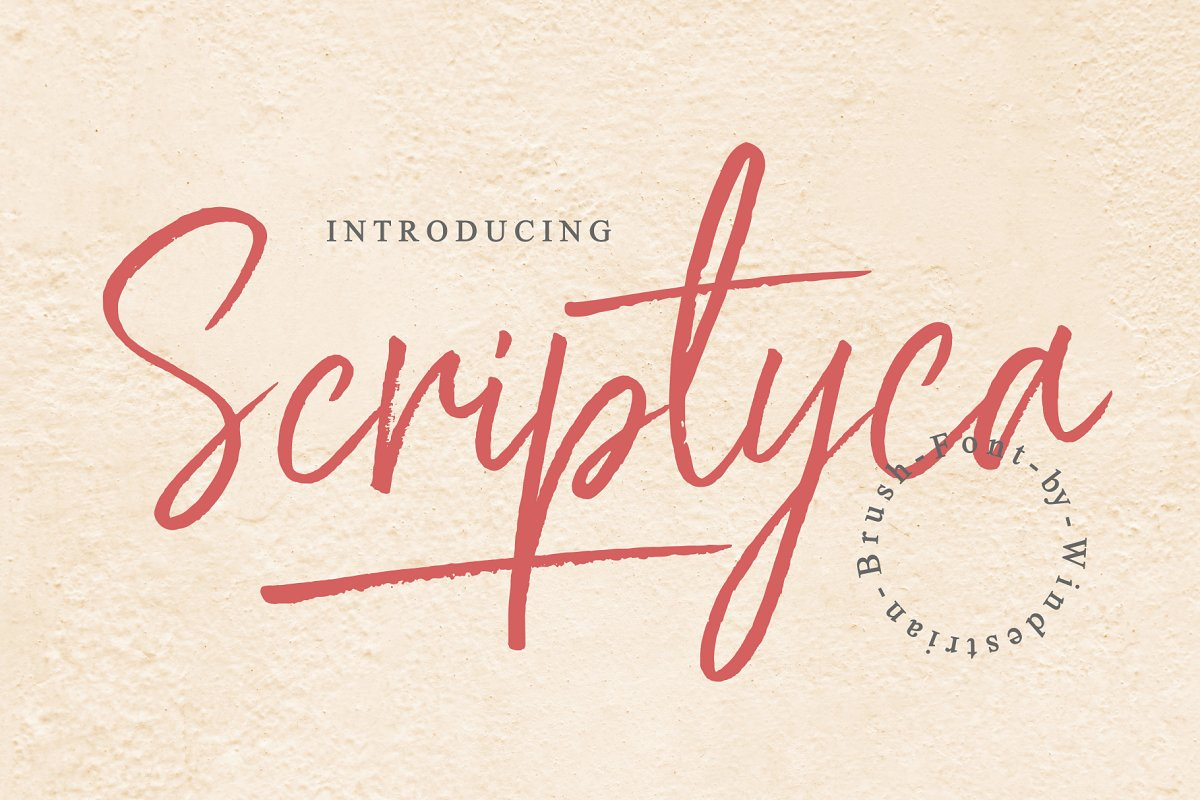
Scriptyca Font
Scriptyca Font is perfect for elegant wedding invitations, luxury brand identity, sophisticated packaging design, premium cosmetics branding, boutique signage, fashion magazine layouts, high-end restaurant menus, exclusive event stationery, jewelry brand materials, upscale spa communications, refined blog headers, and graceful calligraphic compositions.
Scriptyca Font is exciting because it masterfully combines the flowing artistry of traditional calligraphy with contemporary design sophistication, creating script letterforms that dance elegantly across the page while maintaining exceptional legibility and luxury appeal that instantly transforms any project into a premium experience.
The Scriptyca Font family includes refined variations: Regular, Bold, Light, Swash capitals, Decorative alternates, and Ornamental flourishes, offering designers a complete elegant script system to create sophisticated typographic compositions that capture timeless beauty and modern luxury standards.
Experience calligraphic excellence with Scriptyca Font Free Download. This exquisite script typeface brings sophisticated elegance and artistic beauty to contemporary design projects. Whether you're creating luxury brand identities, designing exclusive event materials, or developing premium marketing campaigns, Scriptyca Font delivers unmatched refinement and graceful charm that captivates discerning audiences.
The font's meticulously crafted letterforms showcase the fluid beauty of expert penmanship while incorporating modern design principles that ensure optimal performance across digital and print applications. Each character flows seamlessly with natural grace and artistic flair, creating harmonious compositions that feel both timeless and thoroughly contemporary.
Scriptyca Font excels in creating distinguished brand experiences for businesses that represent sophistication, exclusivity, and artistic excellence. Its elegant presence transforms ordinary communications into extraordinary statements of luxury and quality, making it ideal for high-end hospitality, premium fashion, and exclusive service providers.
Creative professionals treasure how Scriptyca Font brings instant prestige to design projects without appearing overly ornate or pretentious. The font's balanced character and thoughtful design ensure it performs beautifully in both intimate applications and grand display settings, maintaining its sophisticated appeal across all communication needs.
This remarkable typeface shines in applications where emotional connection and luxury positioning are paramount. From exclusive boutiques to five-star establishments, Scriptyca Font creates lasting impressions that communicate excellence, artistry, and the highest standards of contemporary elegance and refined taste.